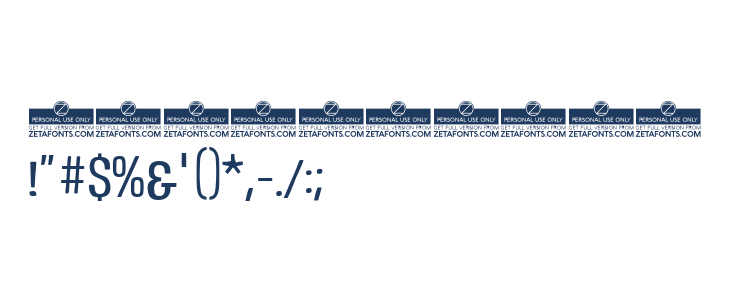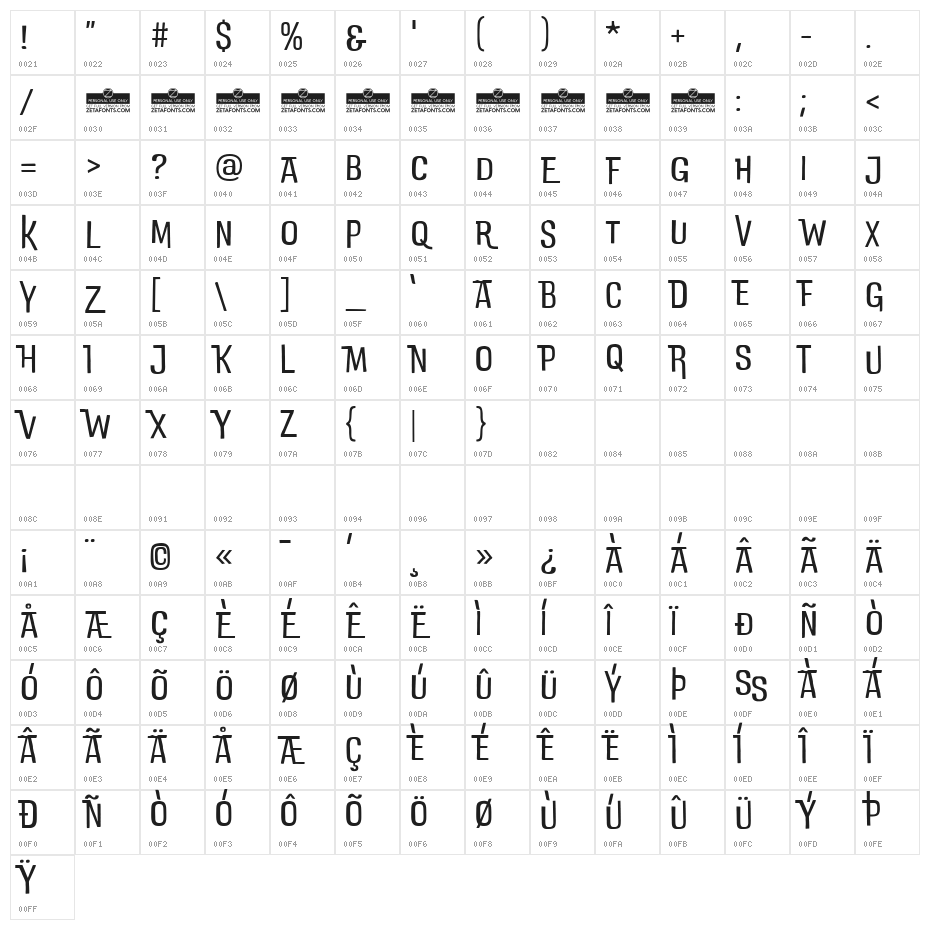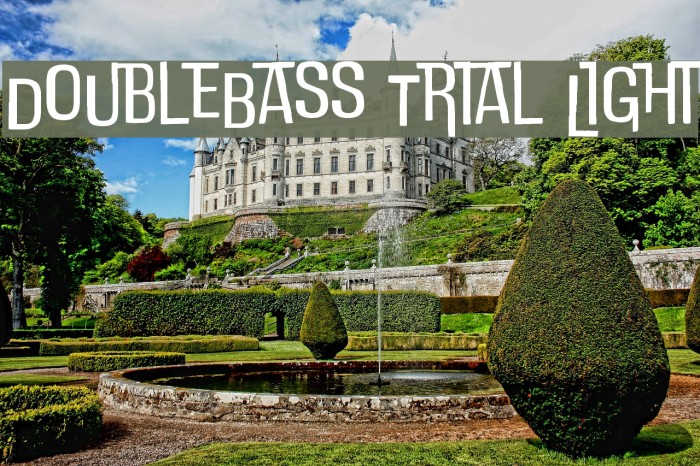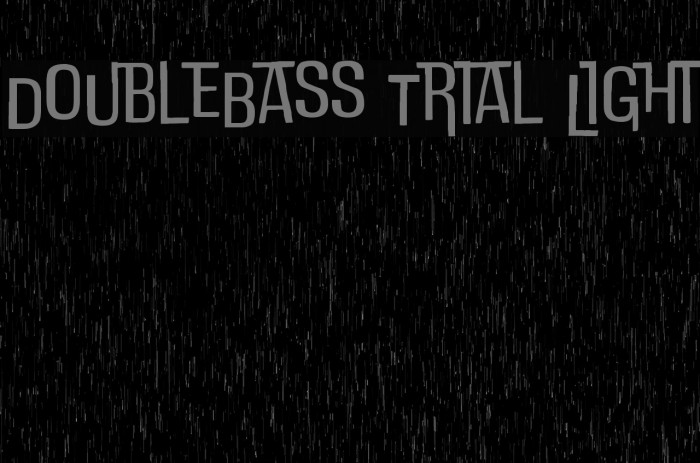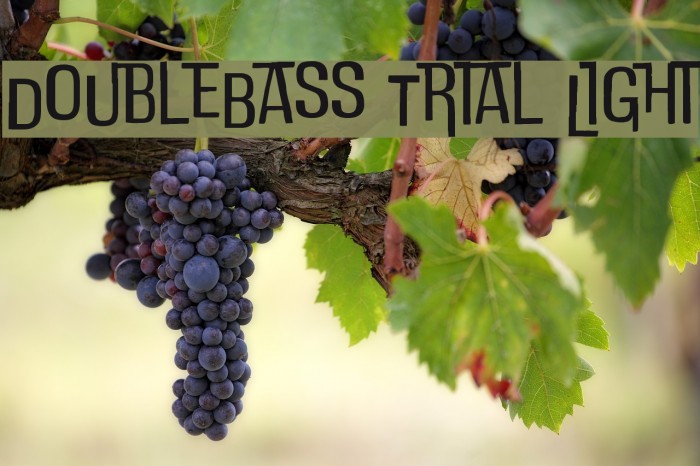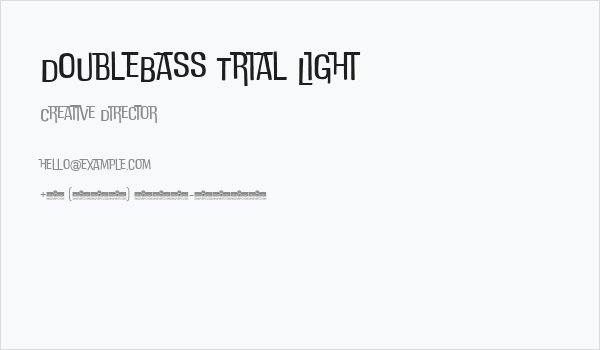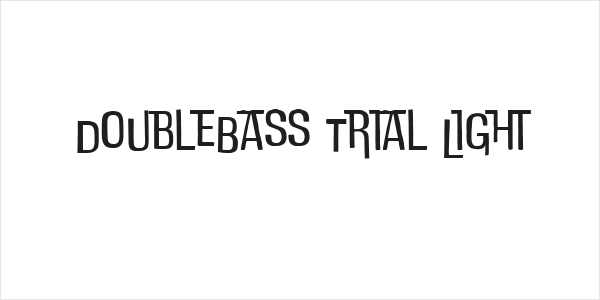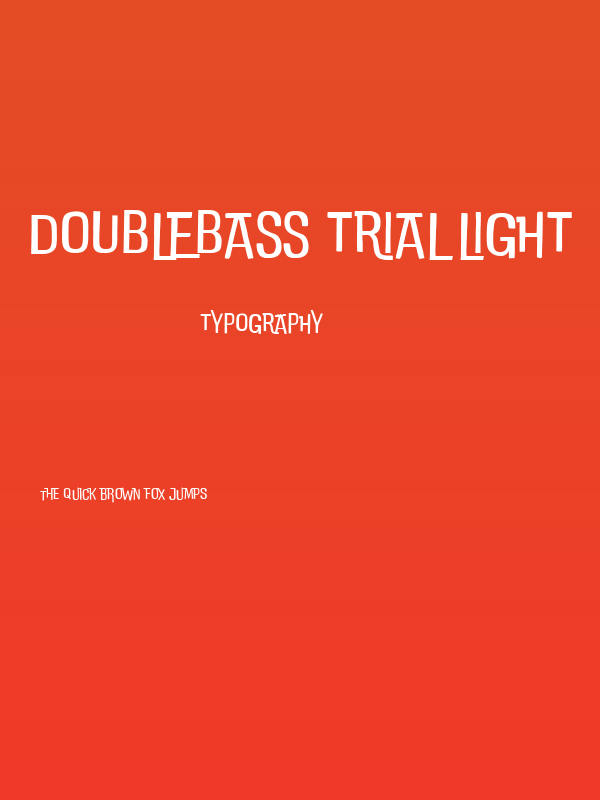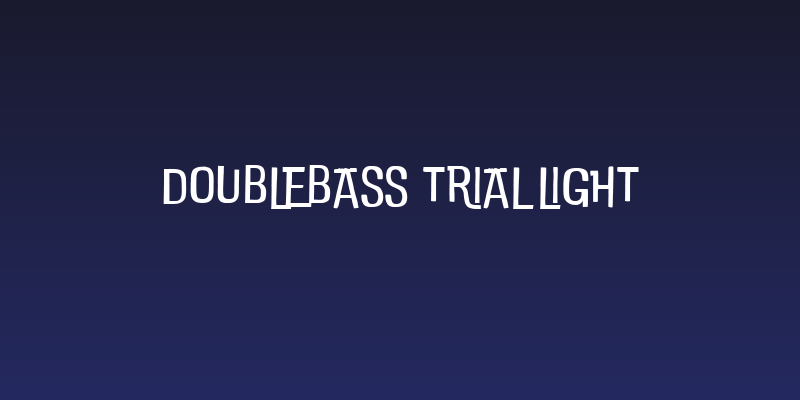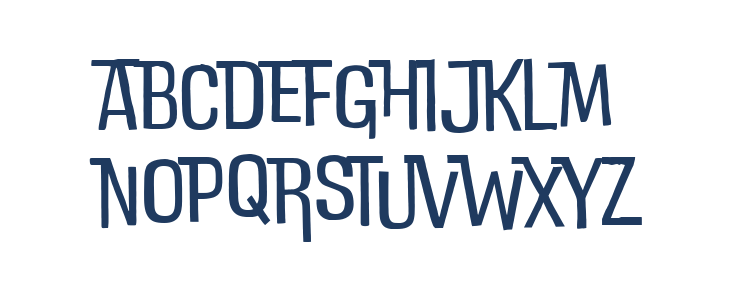
DoubleBass Trial Light Font
DoubleBass Trial Light Description
This font features a unique blend of modern and vintage styles, characterized by its bold and slightly condensed letterforms. The uppercase letters exhibit a strong presence with angular lines and subtle curves, creating a dynamic and eye-catching appearance. The lowercase letters maintain a consistent style, complementing the uppercase with a slightly more relaxed form. The numerals are clear and legible, while the special characters add a touch of flair with their distinctive shapes. Overall, this font combines a sense of strength and elegance, making it suitable for a variety of design applications.
| Proposed Projects | Ideal for branding, poster design, and headlines where a strong visual impact is desired. |